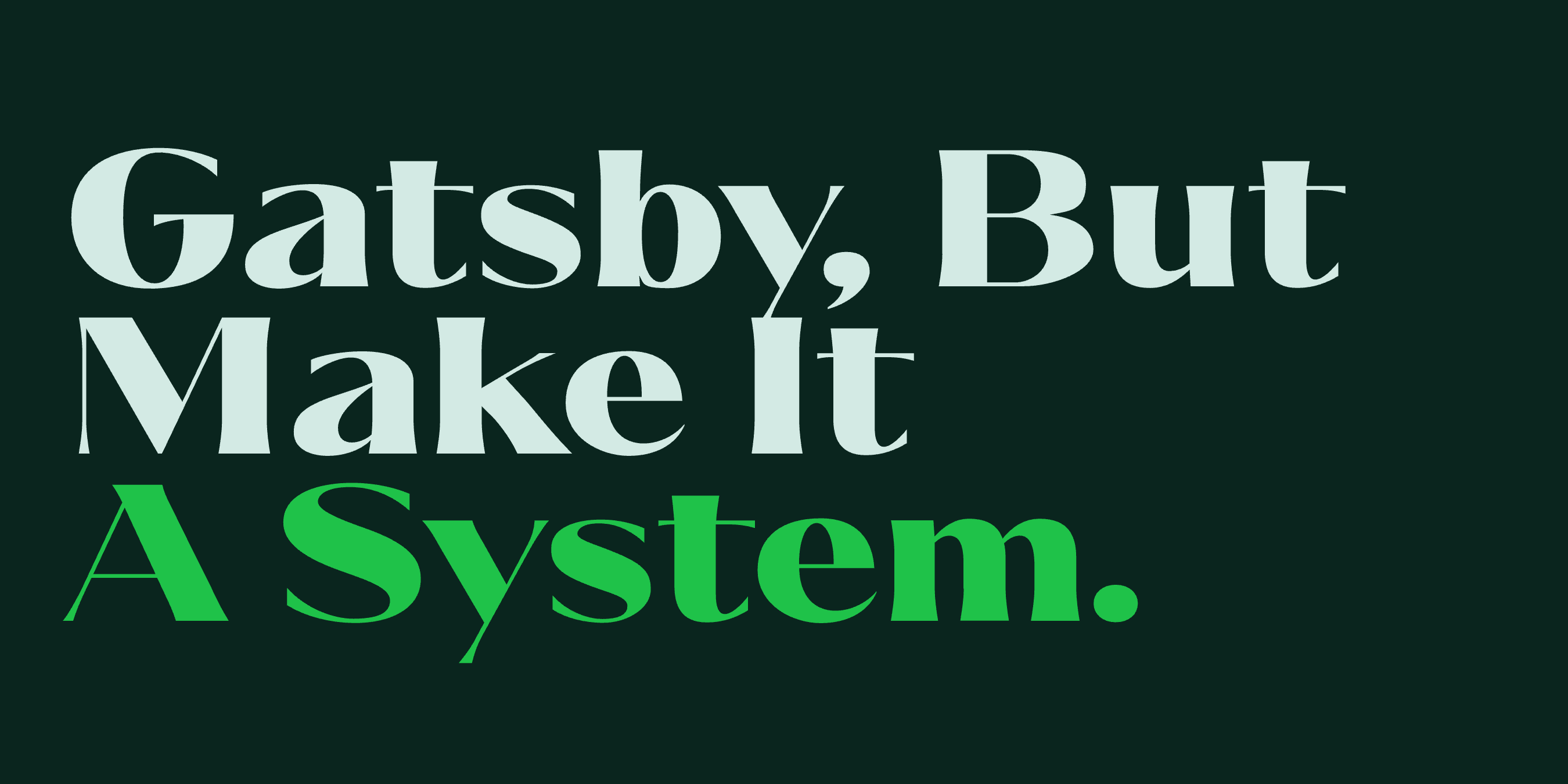
Modern Art Deco Fonts for Luxury and Editorial Branding
Gatsby, Systemized. Set in Ques by Mojomox
Art Deco hit its peak in the 1920s and 30s and never fully left. Cinema posters, luxury packaging, fashion editorial mastheads. The visual language (high contrast, condensed display proportions, sharp angular details) keeps coming back because it reliably reads as confident, luxurious, and considered. Designers in 2026 reach for "modern Art Deco" fonts when a brand needs the historic glamour without the costume-y revivalism.
The Mojomox catalog includes seven fonts that channel the Art Deco aesthetic, modernized for contemporary print and digital work.
1. Aezra
Sharp narrow serif with long terminals. The condensed proportions and sharp details put Aezra firmly in the Art Deco tradition, modernized for current editorial work.
2. Saltz
Sharp condensed serif for editorial titling. The proportions read Art Deco at large sizes while staying legible at smaller sizes.
3. Ques
Wide elegant contrast serif-style typeface. Wider than most Art Deco display work, but the high contrast and refined character fit the tradition.
4. Bauhaus Chez
Rounded high-contrast typeface. The contrast is signature Art Deco; the rounded character softens the original era's strict geometry.
5. Mod
Modern serif with elegant proportions. Quieter than the explicit Deco picks, but in the same lineage. Good for sophisticated luxury wordmark work.
6. Roma
Modern elegant sans-serif contrast typeface. The contrast nods to Art Deco's sans-serif moment (the geometric sans of the late 1920s); the humanist base keeps it current.
7. Rozi
Modern elegant font with sharp serifs. The crisp terminals and confident strokes have Art Deco fingerprints throughout.
Modern Art Deco vs strict Art Deco revival
Strict Art Deco revival fonts (the ones that try to replicate the 1920s exactly) tend to read costume-y or as movie-prop type. Modern Art Deco fonts take the aesthetic principles (contrast, condensed proportions, considered detail) and modernize the execution. The result reads luxury without nostalgia.